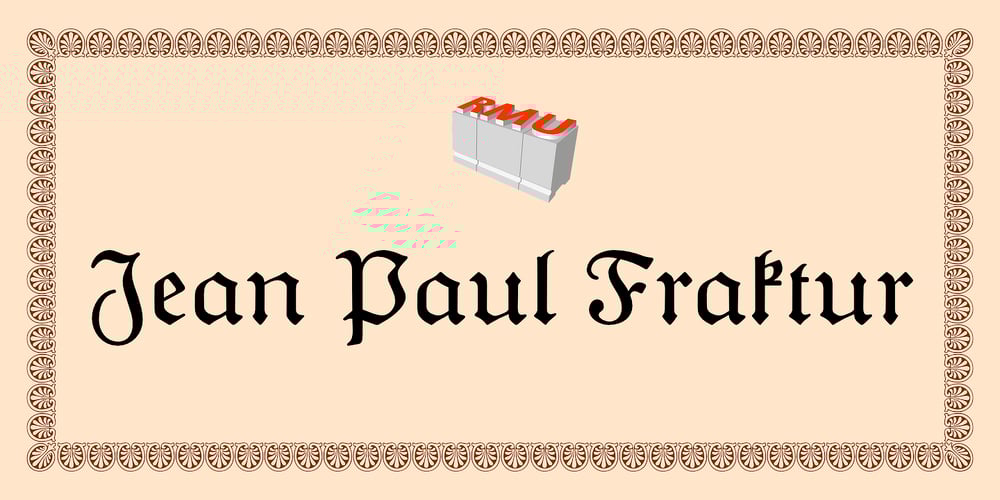
Jean Paul Fraktur Font Family was designed by Ralph M. Unger and published by RMU. Jean Paul Fraktur contains 1 styles and family package options. A typographic treasure, originated at the end of the 18th and the beginning of the 19th century, had been brought back to life. With its charming touch it makes a wonderful font for poems, bookcovers, reprints and other historically relevant projects.To get access to all ligatures, it is recommended to activate both Standard and Discretionary Ligatures; the round s you find on the # key, and typing the combination N-o-period and activating the OT feature Ordinals gets you the numero sign.